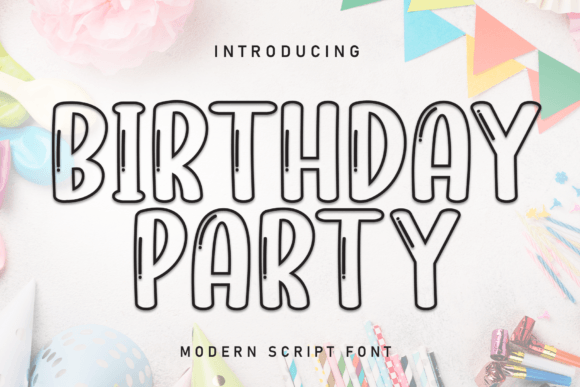
The Perfect Party Guest: A Deep Dive into the Birthday Party Font
I’ll never forget the time I was working on a birthday party invitation project, and I just couldn’t find the right font. The client wanted something sweet, friendly, and playful, but everything I tried seemed either too boring or too over-the-top. That’s when I stumbled upon the Birthday Party font, and let me tell you, it was love at first sight! 💕
This beautiful, handwritten font has a natural and unique style that makes it incredibly versatile. Whether you’re designing party invitations, crafting DIY projects, or creating social media graphics, Birthday Party is sure to bring a smile to your audience’s faces.
- ✨ Sweet and friendly vibe that’s perfect for party designs
- 🎉 Unique character set with plenty of personality
- 🤔 Some users might find the font a tad too casual for certain projects
- ⚠️ Limited availability of stylistic alternates, but still plenty of options to play with
One of the best things about the Birthday Party font is its OpenType features and glyphs. With a range of stylistic alternates, you can customize your text to fit your design style. For example, you can use the “Stylistic Set” feature to access alternative characters, such as swashes or ligatures.
The Designer Inspiration Behind Birthday Party
According to the font’s creator, the Birthday Party font was inspired by the joy and excitement of celebrating special occasions. The designer wanted to create a font that would bring a smile to people’s faces and make their party designs stand out.
Whether or not that’s true, one thing is certain: the Birthday Party font has captured the hearts of designers and crafters around the world, and it’s easy to see why.